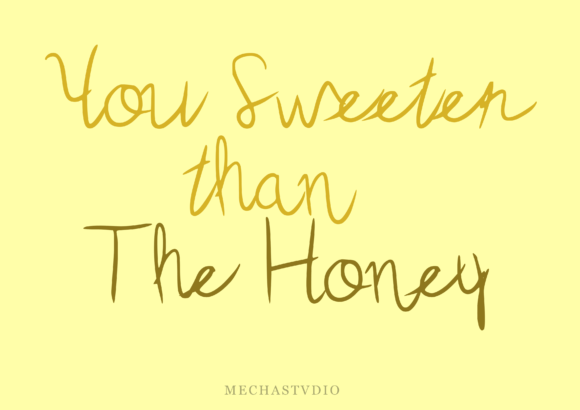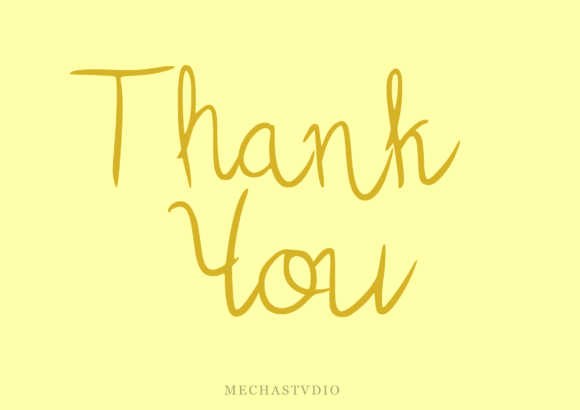
The Honey Font
About The Honey Font
“The Honey: Where Natural Beauty Meets Casual Elegance in Handwritten Typography
Introducing The Honey, a light handwritten font that embodies the essence of natural beauty and casual elegance. With its unique and casual feel, The Honey adds a touch of authenticity and charm to any design project. Whether you’re working on logos, branding materials, social media posts, invitations, or any creative endeavor that requires a natural spark, The Honey effortlessly infuses your designs with a sense of warmth and genuine appeal, making them come to life with a natural, handwritten touch.
The allure of The Honey lies in its light handwritten style, where each letter exudes a sense of natural beauty and effortless grace. Its flowing strokes and gentle curves create a visual poetry that captures the essence of handwritten charm with a touch of casual elegance. Imagine your logos adorned with The Honey’s light, airy letterforms, exuding authenticity and approachability. Picture your social media posts featuring its unique handwritten flair, instantly connecting with your audience on a personal level. With The Honey, your designs radiate with a natural spark, making them visually captivating and emotionally resonant.
One of The Honey’s standout features is its versatility. Its unique and casual feel makes it suitable for a wide range of applications, from branding and invitations to social media graphics and product packaging. Whether you’re designing rustic logos for organic products or crafting heartfelt invitations for special events, The Honey elevates your designs with its effortless elegance, making them stand out with a touch of natural charm and genuine appeal.
Moreover, The Honey is more than just a font; it’s an invitation to embrace the beauty of imperfection and the charm of handwritten authenticity. Its natural beauty and casual elegance resonate with individuals who appreciate the warmth of genuine craftsmanship, making it a favorite among designers and enthusiasts seeking a font that exudes natural grace and approachable style. The Honey becomes a reflection of your genuine spirit, allowing you to create designs that not only capture attention but also create meaningful connections with your audience.
In a world where natural beauty meets casual elegance, The Honey helps you make a statement. It speaks the language of authenticity and approachability, resonating with those who appreciate the beauty of handwritten artistry with a touch of genuine charm. Whether you’re designing for branding, social media, or any creative endeavor, The Honey becomes your trusted companion, guiding you toward design excellence.
So, why settle for ordinary when you can embrace the extraordinary with The Honey? Let this light handwritten font be the canvas for your creative expressions, and watch as your projects come to life with natural beauty, casual elegance, and genuine appeal. Let your creativity flow, and let The Honey be the brushstroke that paints your ideas into visually captivating masterpieces, leaving a lasting impression on the hearts of your audience. Infuse your designs with The Honey, where natural beauty meets casual elegance, and transform your creations into works of art that resonate with the authentic spirit of handmade craftsmanship.”